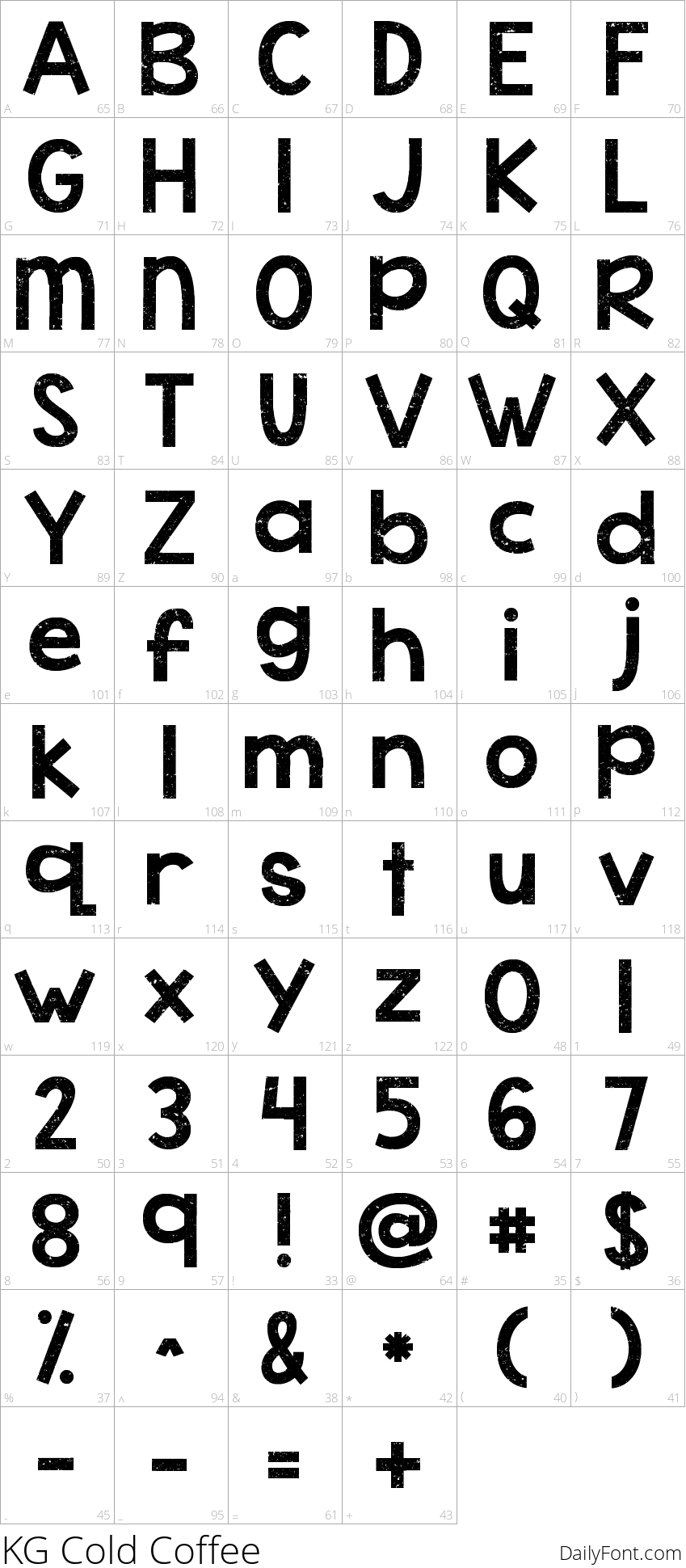
KG Cold Coffee
KG Cold Coffee, created by the talented Kimberly Geswein, stands out as a unique distorted and heavy sans serif font. This typeface breaks away from traditional design conventions by introducing an intriguing playfulness interwoven with a rugged essence. Each letter is characterized by its thick, bold strokes which give the font a sense of weight and presence. However, the letters do not conform to the rigid, structured forms often found in conventional sans serif fonts. Instead, they exude a quirky irregularity that brings a refreshing sense of spontaneity and informality.
The distortion elements of KG Cold Coffee are subtle yet impactful, adding a textured, somewhat hand-drawn feel to the font. This gives the typeface an approachable, almost human quality that sets it apart from more clinical sans serif options. The rounded edges and varying line widths further enhance the font's organic and whimsical attributes, making it an ideal choice for projects that seek to balance boldness with an easy-going attitude.
Despite its playful nature, KG Cold Coffee maintains a clear legibility, ensuring that even the most intricate messages come across effectively. This makes it suitable for a wide range of applications, from eye-catching headlines and titles to unique branding materials and creative projects. By using KG Cold Coffee, designers can inject a touch of personality and warmth into their works, all while maintaining a professional and impactful visual presence.